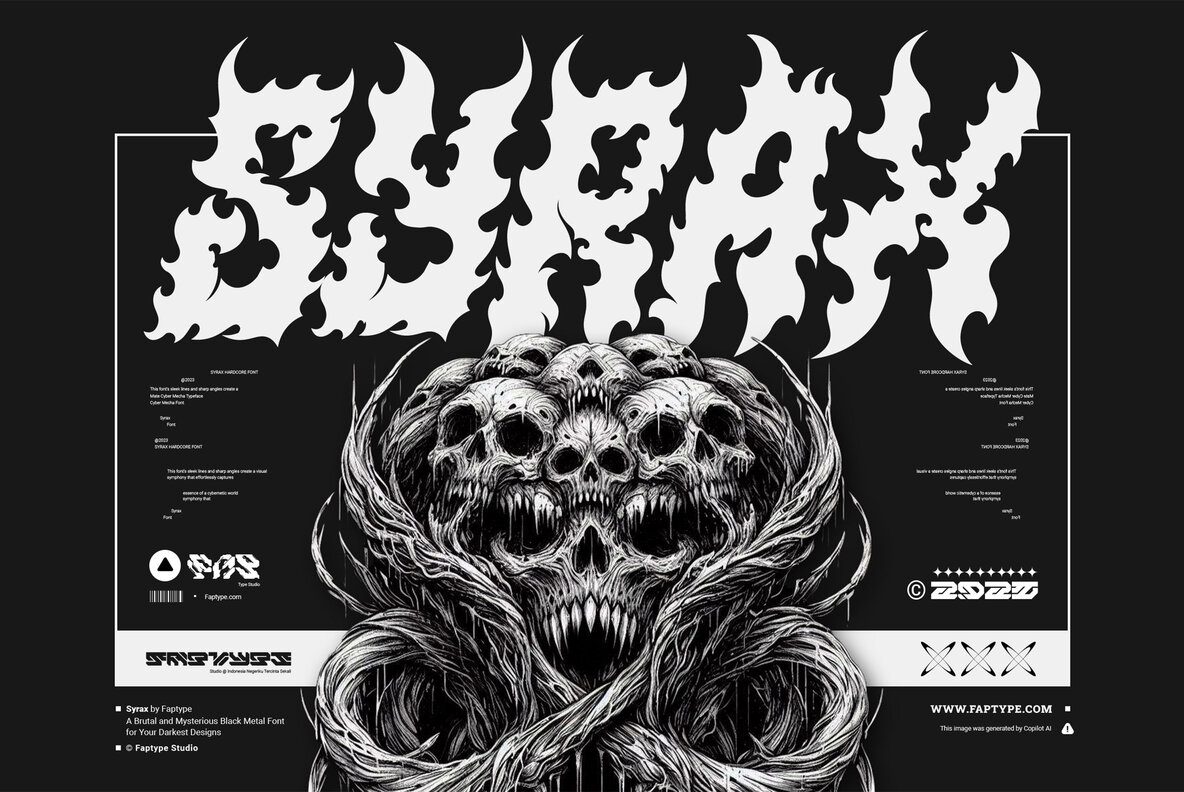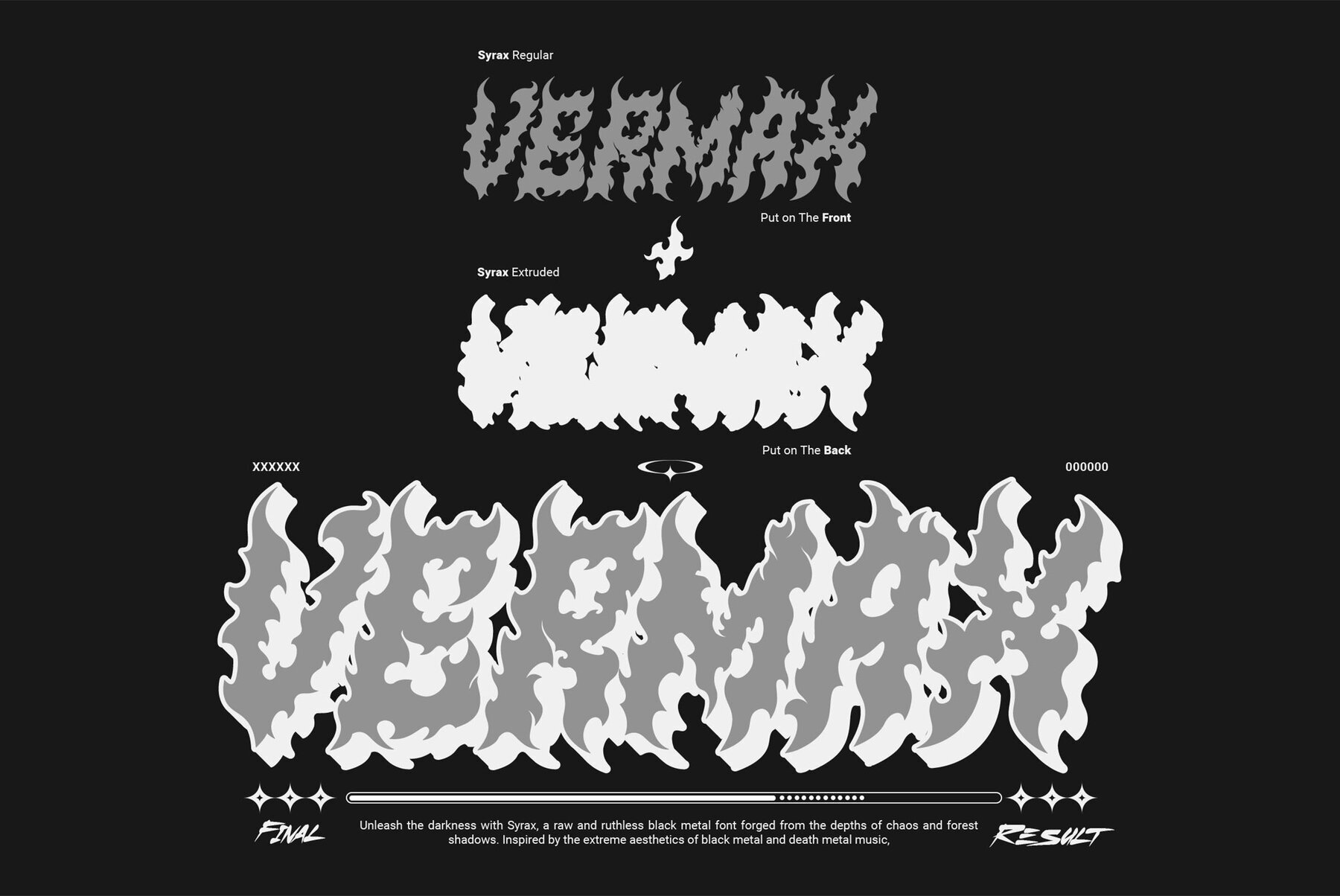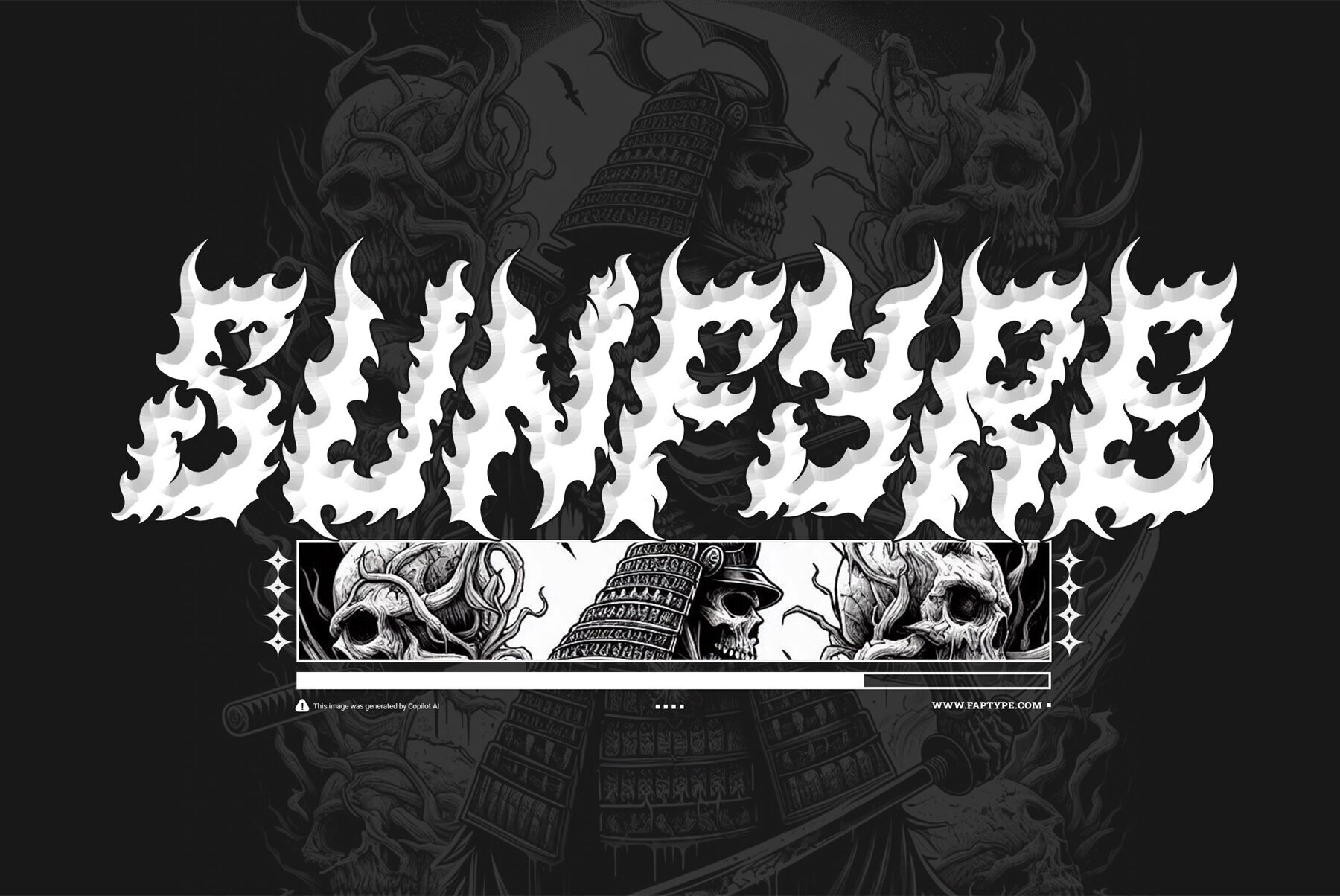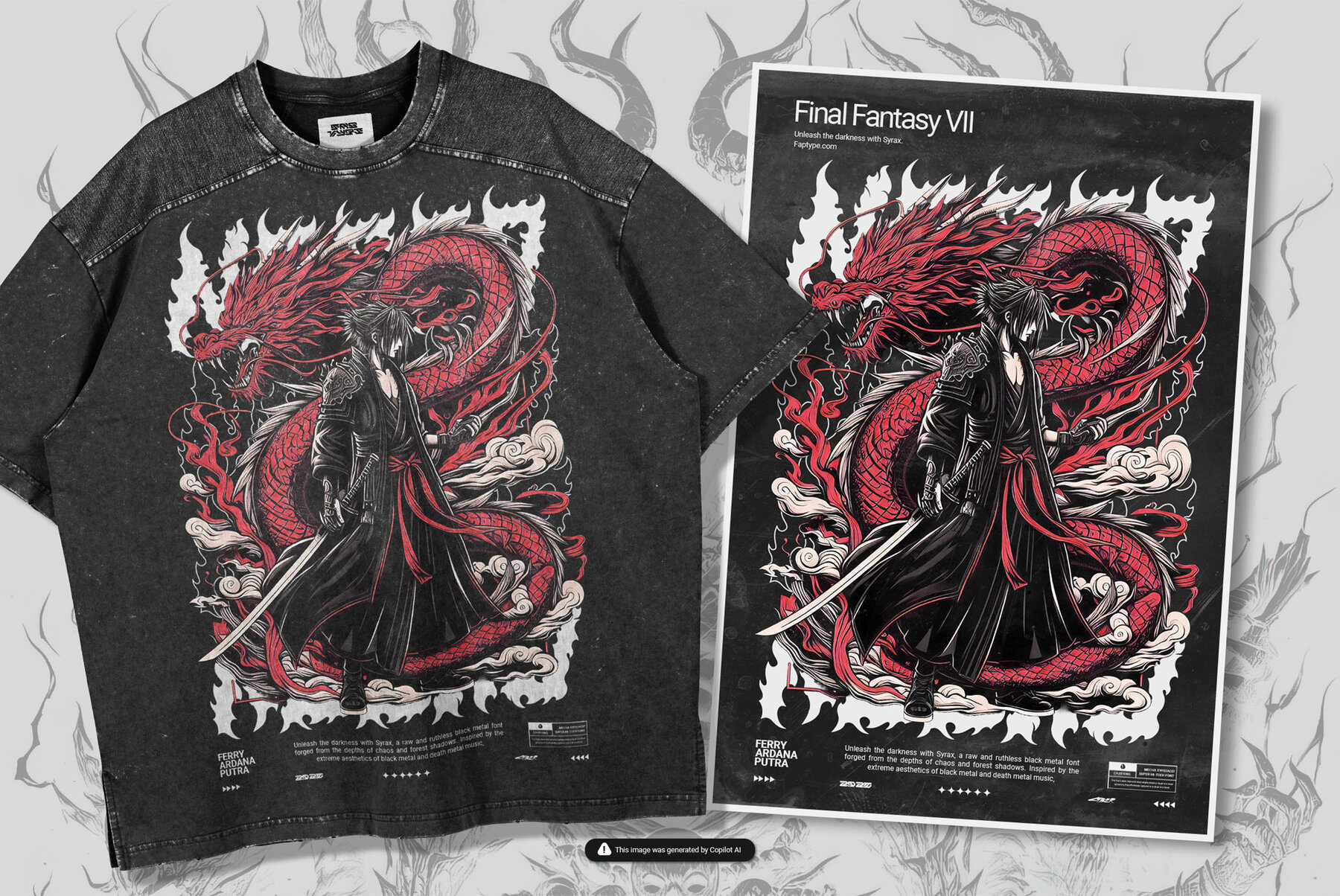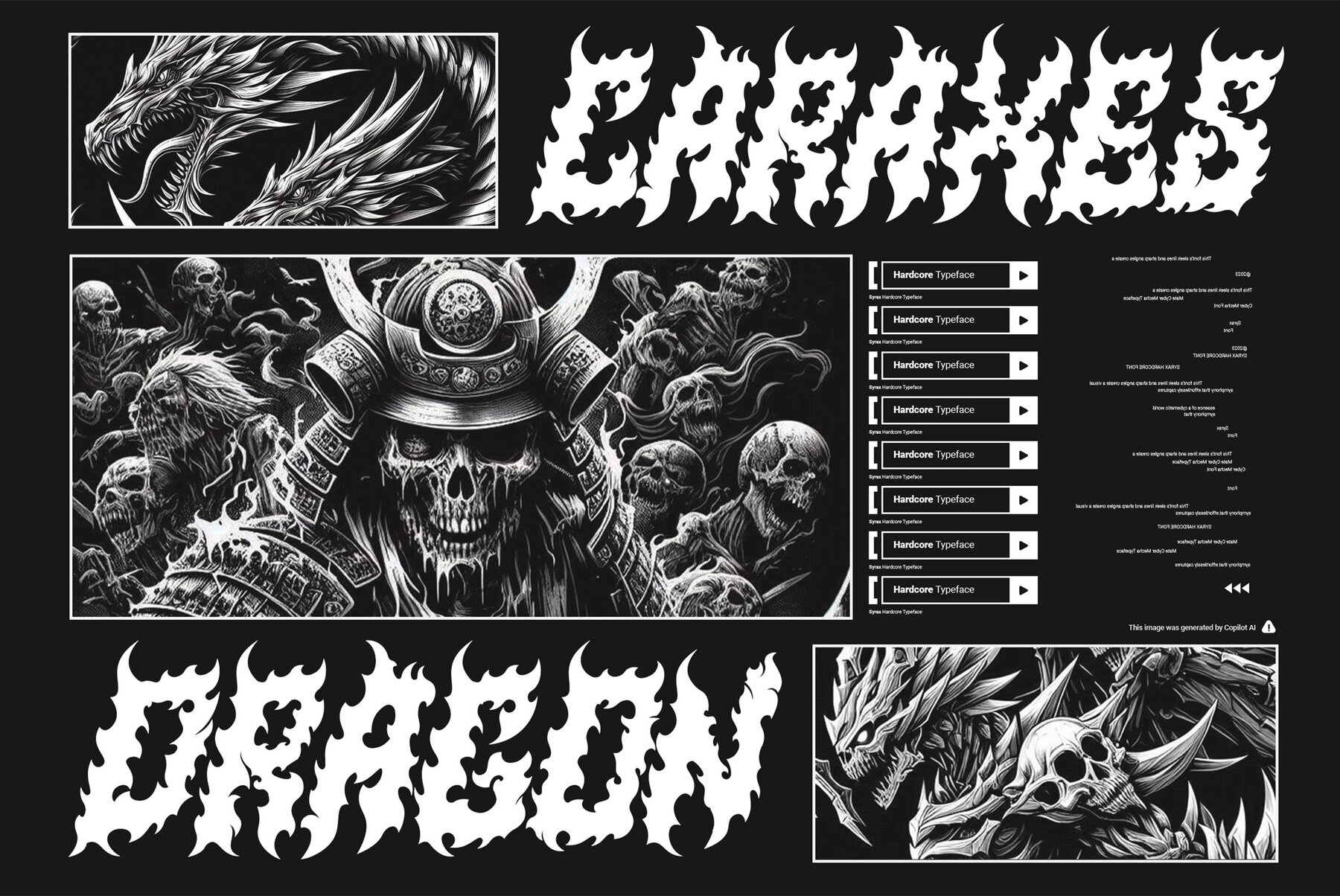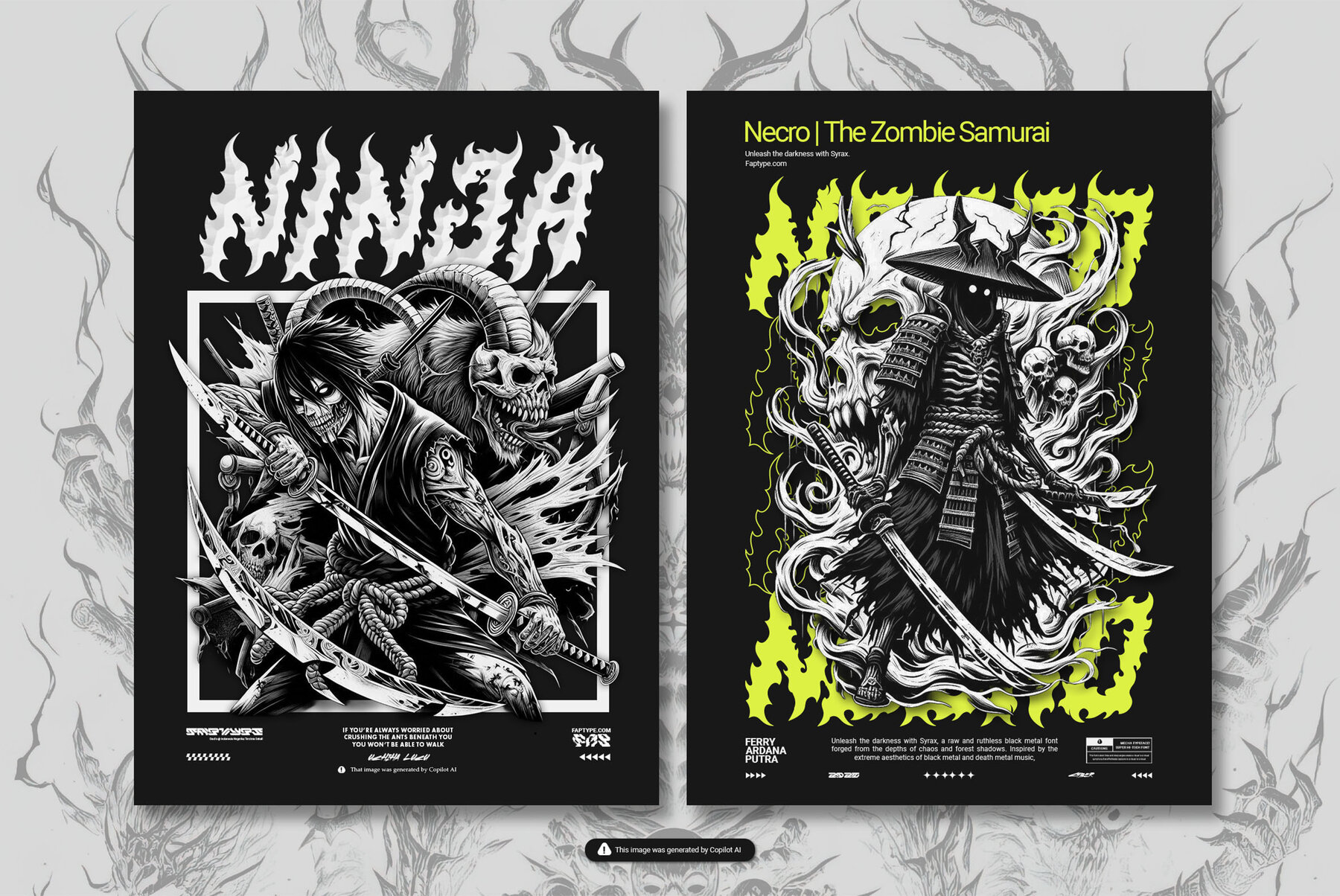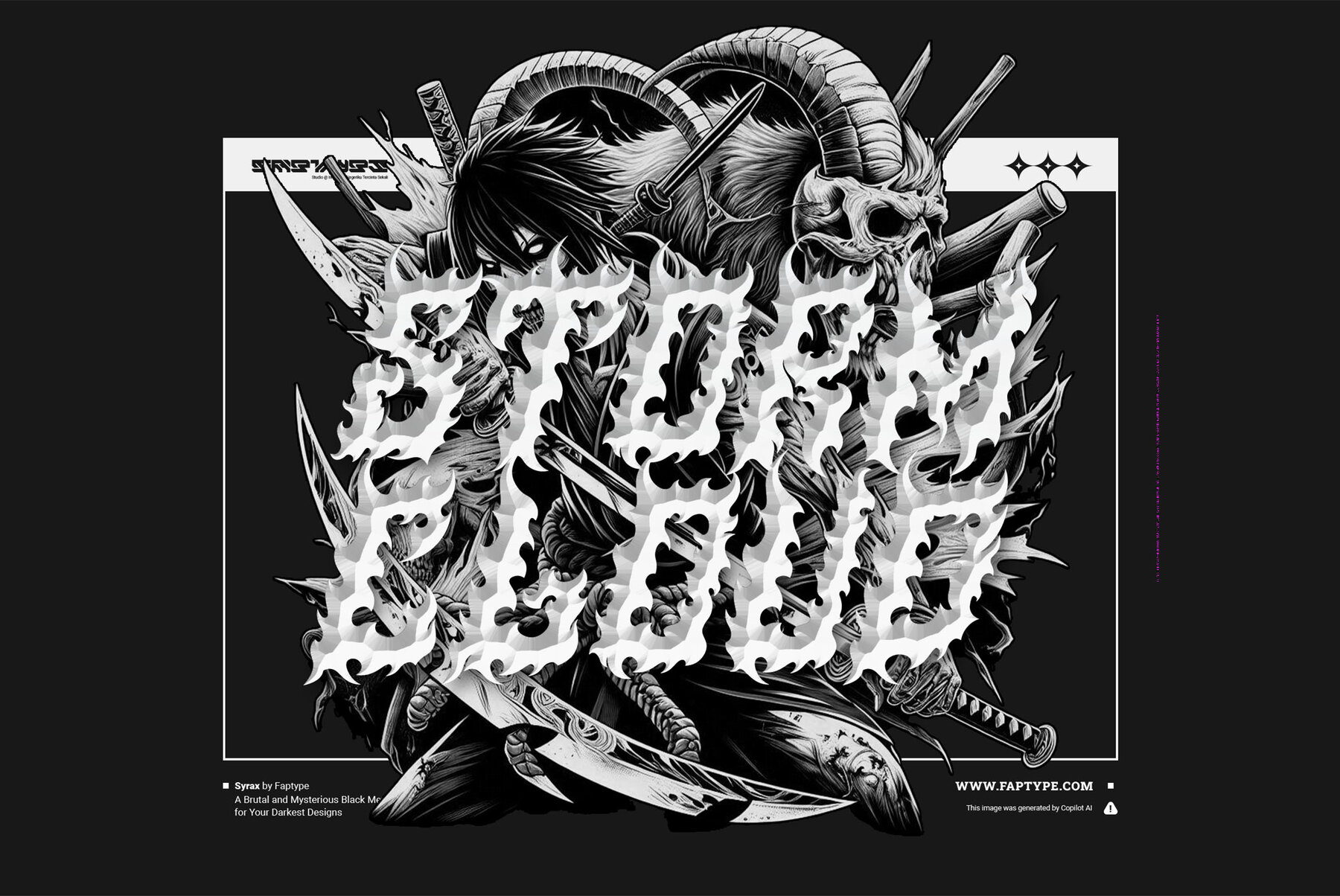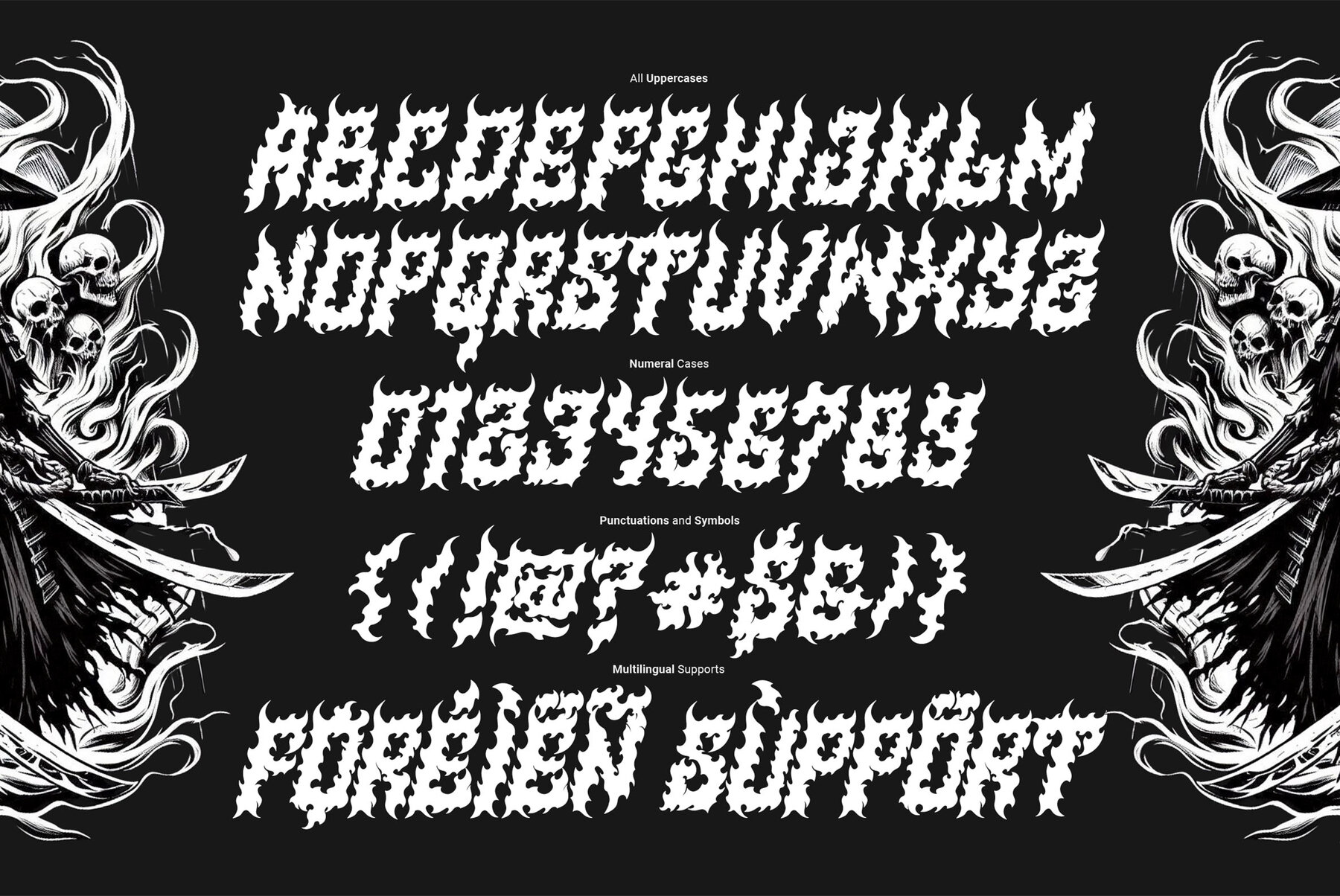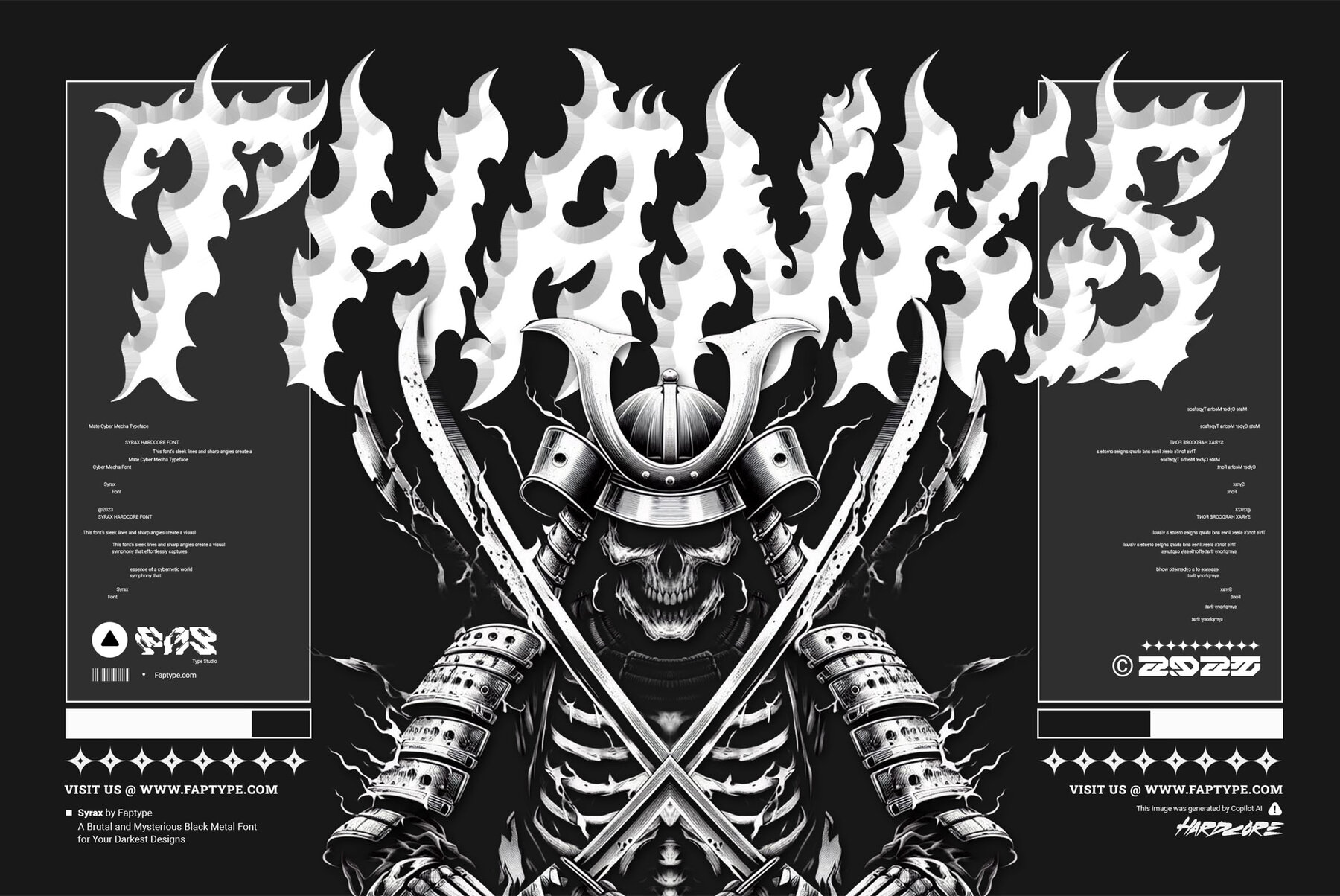
Syrax Font
expand_font Syrax Font Unleash brutal visuals with Syrax: the font that screams defiance in every stroke. Perfect for extreme music design. Grindcore,Hardcore,Halloween,Horror,Cyber,Mecha Horror,Headline,Black Metal,Vinyl,Album Music,Edgy,Extreme,Ornate,Tattoo,Tattoo,Scary Explore Exceptional Fonts for Digital and Traditional Media Fontpath offers a large variety of fonts for every designer, all at affordable prices and in multiple formats. Browse our best in class fonts today for all your creative needs, you can find everything you need right here at our site! Fonts,sans,sans serif,retro,script,decorative,title,FontPath 20140312040223 Fontpath offers 200,000+ of the most professional fonts found online, start downloading today! Real-Time Font Discovery at Fontpath